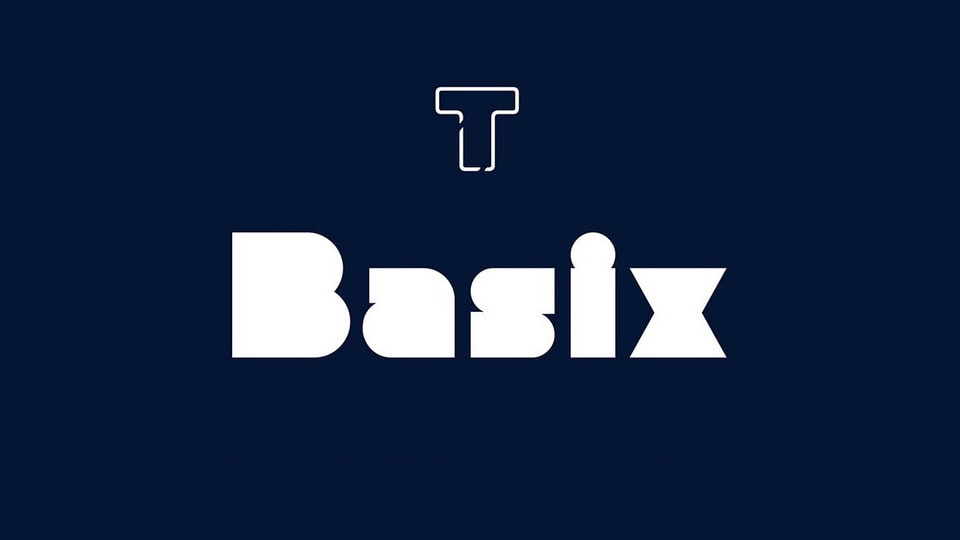
Download LT Basix font, a typeface based on geometric shapes. Its clean, modern look makes it a versatile font that can be used for a variety of purposes, and they include logos, branding, posters, and editorial design.
Designer: LyonsType